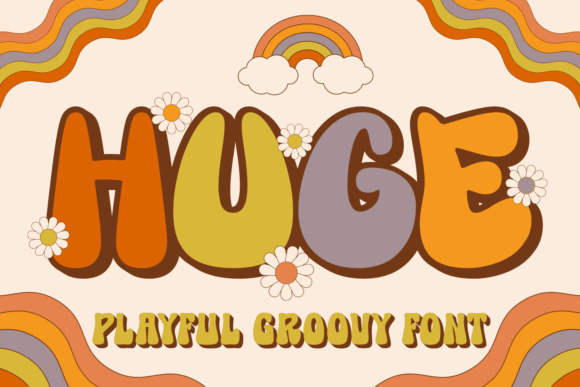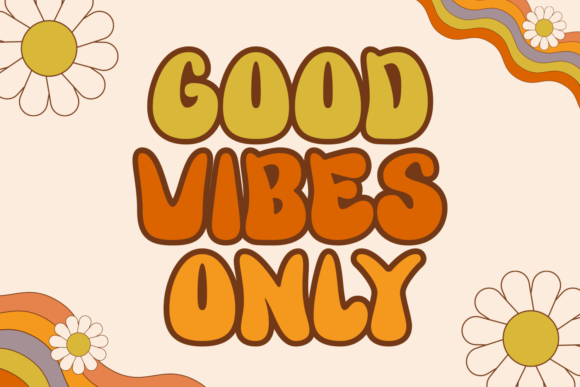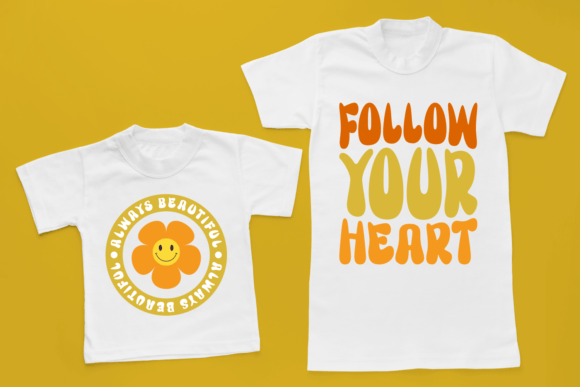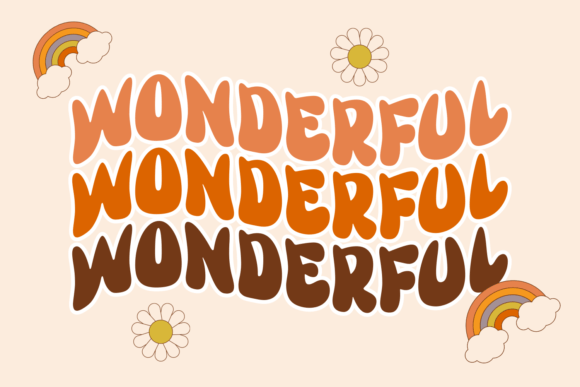
Get Ready to Make a Big Impact with Your Designs!
Have you ever stared at a blank canvas, eager to unleash your creativity but struggling to find the perfect font to bring your idea to life? That’s exactly how I felt when I was working on a project and needed a font that would grab attention and set the tone for a fun, playful vibe. That’s when I discovered Huge Font – a thick and playful display font that’s guaranteed to make your creations stand out.
This groovy retro-inspired font is perfect for designers who want to add a touch of whimsy and personality to their typography designs. With Huge Font, you can create eye-catching posters, headlines, and even apparel that’s sure to turn heads. Its versatility makes it a valuable asset for designers who want to add a little extra oomph to their designs.
Huge Font Key Features
- Font Size: Up to 72 points, making it ideal for presentations, signage, and other large-scale applications.
- Resolution: Supports high-resolution output, including 300 DPI and 600 DPI, for crisp and clear text at any size.
- Font Styles: Offers a range of font styles, including bold, italic, and bold-italic, to add emphasis and variety to your text.
- Customization: Allows for easy customization of font size, color, and style, making it easy to tailor the font to your specific needs.
- Scalability: Designed to be highly scalable, Huge Font can be easily resized without losing clarity or quality, making it perfect for large-scale applications.
Huge Font Review
First off, Huge Font is a bold and eye-catching choice for headings and titles. ✨ The font size is, as the name suggests, huge, making it perfect for grabbing attention and drawing the user’s eye to key information. It’s also a great choice for adding some personality to your design, especially if you’re going for a playful or modern aesthetic.
One of the standout features of Huge Font is its versatility. ✨ It comes in a range of weights and styles, from light to bold, so you can use it to create a sense of hierarchy and emphasis in your design. Plus, it’s fully customizable, so you can adjust the size, color, and spacing to fit your needs.
One of the main limitations of Huge Font is its readability. ⚠️ At such a large size, it can be difficult to read, especially for long blocks of text. This makes it best suited for use in short paragraphs or as a headline.
- Difficult to read at large sizes
- May not be suitable for long blocks of text
- Can be overwhelming if used excessively
Overall, Huge Font is a great choice for designers looking to add some visual punch to their designs. Just be mindful of its limitations and use it sparingly to avoid overwhelming your audience.
Huge Font: A Practical Application Guide
Huge Font is often used in headings, titles, and other attention-grabbing text elements. It can be particularly effective in presentations, advertisements, and social media posts where you want to draw the viewer’s attention to a specific message or call-to-action.
To effectively use Huge Font, make sure to balance it with smaller font sizes in surrounding text. Use Huge Font sparingly to avoid overwhelming the viewer. Also, choose a font that is clear and legible at large sizes, such as a sans-serif font like Arial or Helvetica.
Alternative Typography Options for Designers
1. Large Text
Large Text is a versatile alternative to Huge Font, offering a more subtle approach to emphasizing important content. It’s ideal for headings, titles, and captions where a clear, readable font size is necessary. Compared to Huge Font, Large Text is less obtrusive and easier to read in long-form content.
2. Display Font
Display Font is a more expressive alternative to Huge Font, designed to draw attention to specific elements on a page. It’s perfect for titles, hero sections, and calls-to-action where a bold, eye-catching font size is required. Unlike Huge Font, Display Font often features unique typography and styling options.
Q: Can I use Huge Font in conjunction with other accessibility features?
Yes, Huge Font can be used in conjunction with other accessibility features, such as high contrast mode, zoom functionality, and screen readers. In fact, Huge Font is often used in conjunction with other accessibility features to provide a better reading experience for individuals with visual impairments. By combining Huge Font with other accessibility features, you can create a more